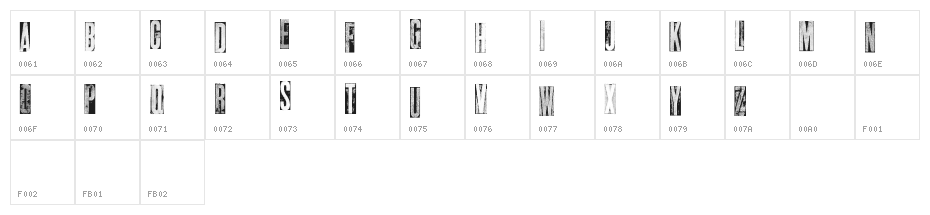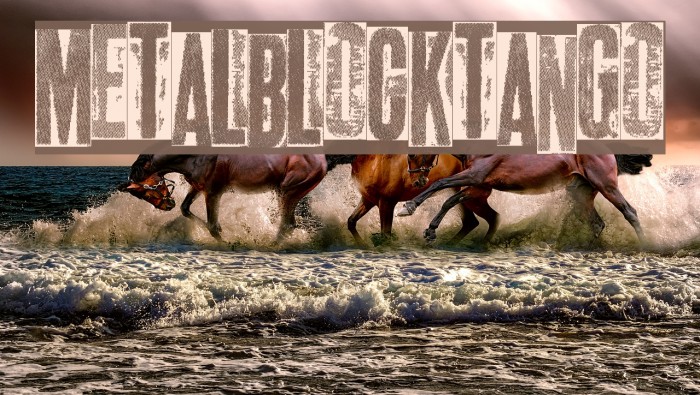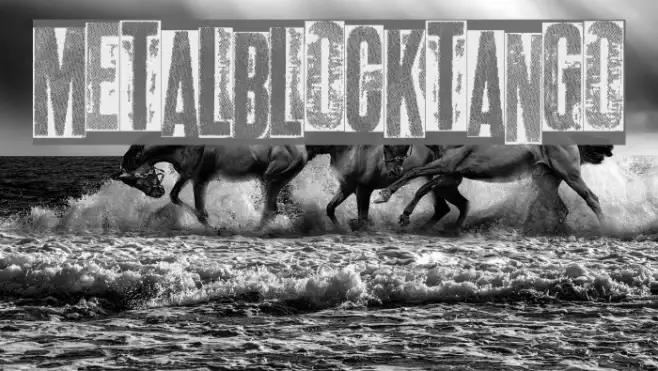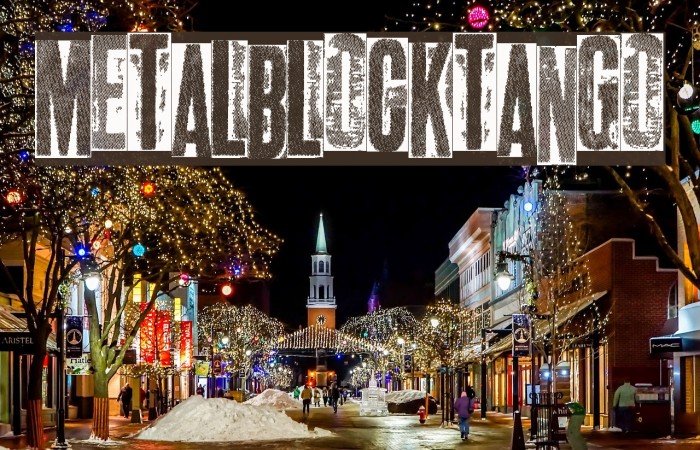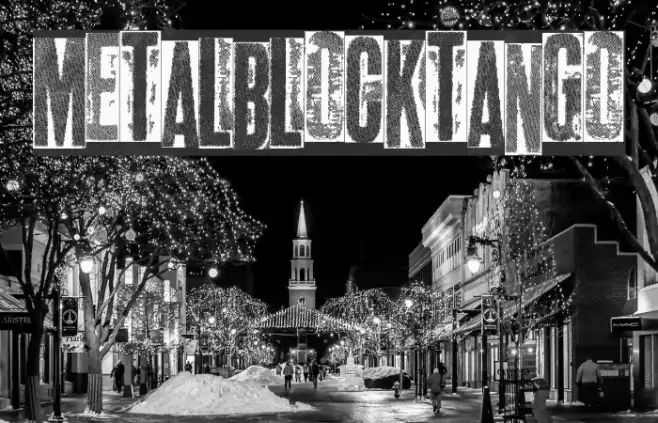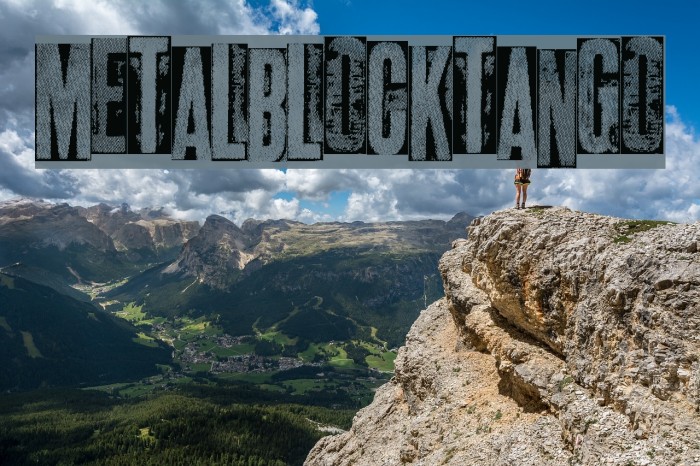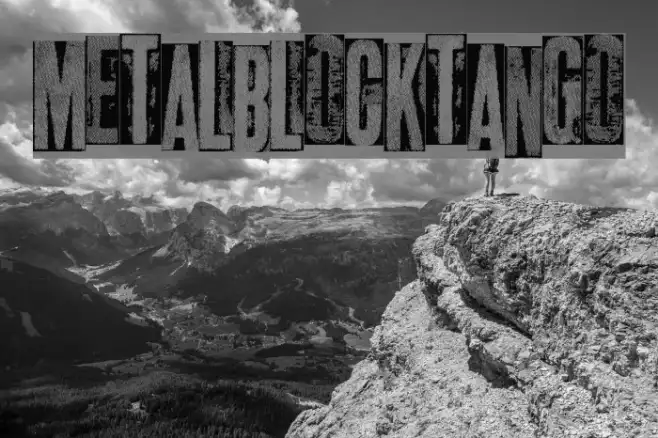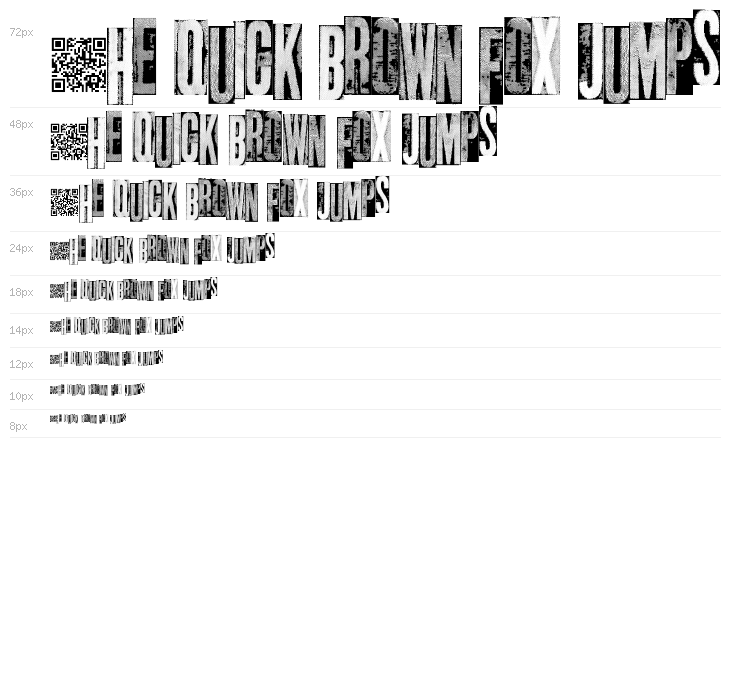
metalblocktango Font
metalblocktango Description
This font features a bold and industrial design, characterized by its blocky and robust letterforms. The texture within each character gives it a gritty, metallic appearance, reminiscent of stamped metal or distressed surfaces. The uppercase letters are particularly striking, with a strong presence that commands attention. The overall aesthetic is rugged and edgy, making it suitable for projects that require a bold statement. The font's unique texture and weight make it stand out, adding a layer of depth and interest to any design.
| Overall Style | Industrial, Edgy |
| Proposed Projects | Ideal for posters, album covers, branding for industrial products, or any design requiring a strong, edgy look. |